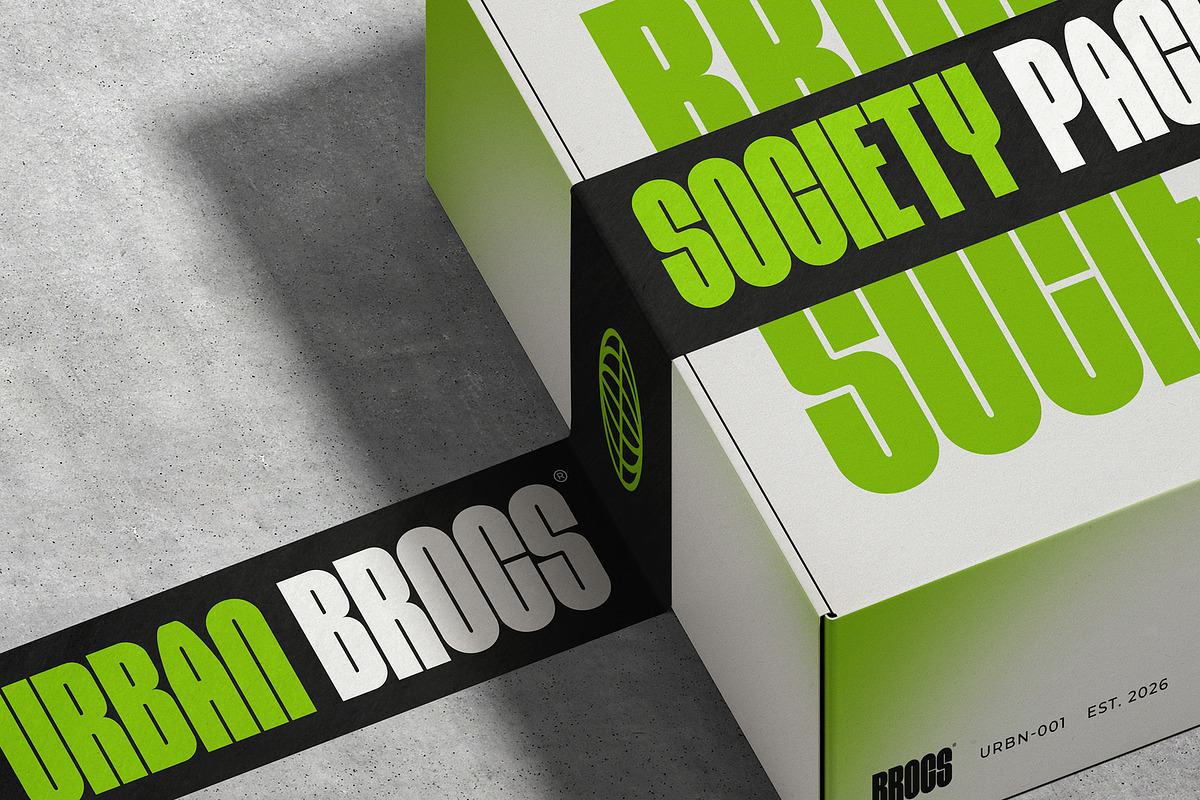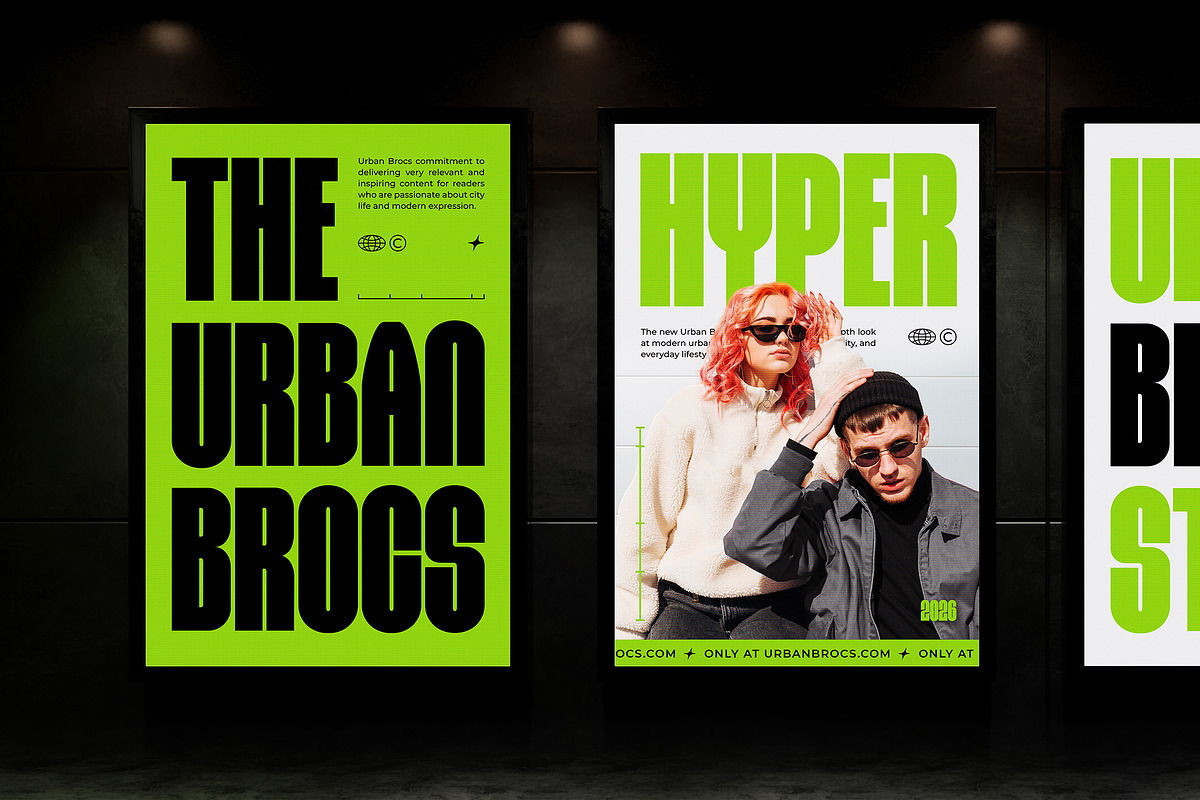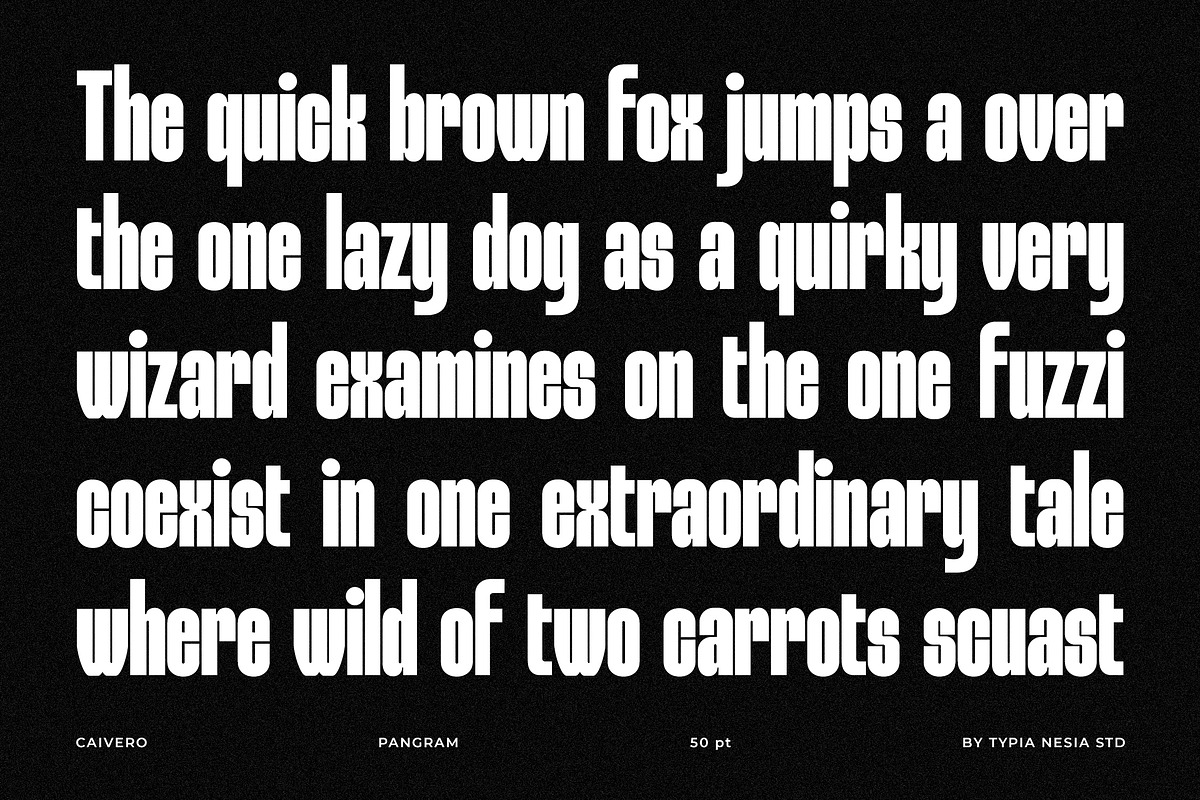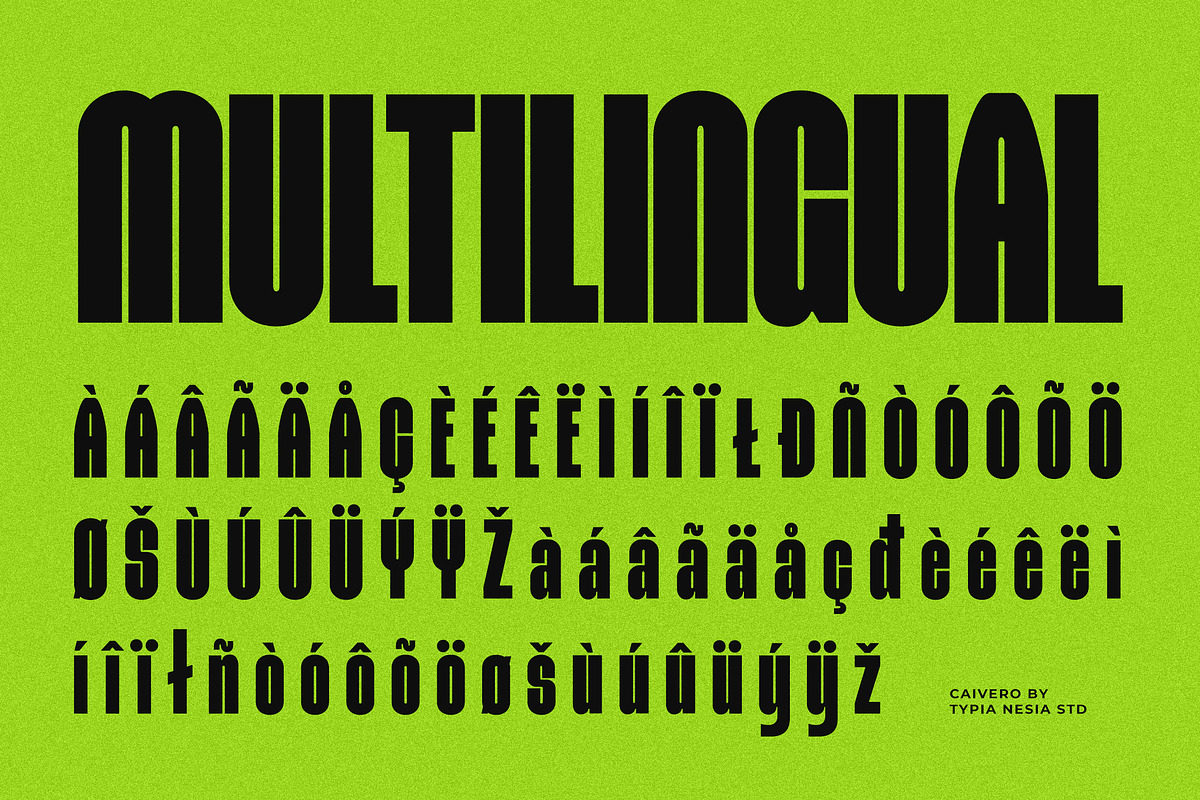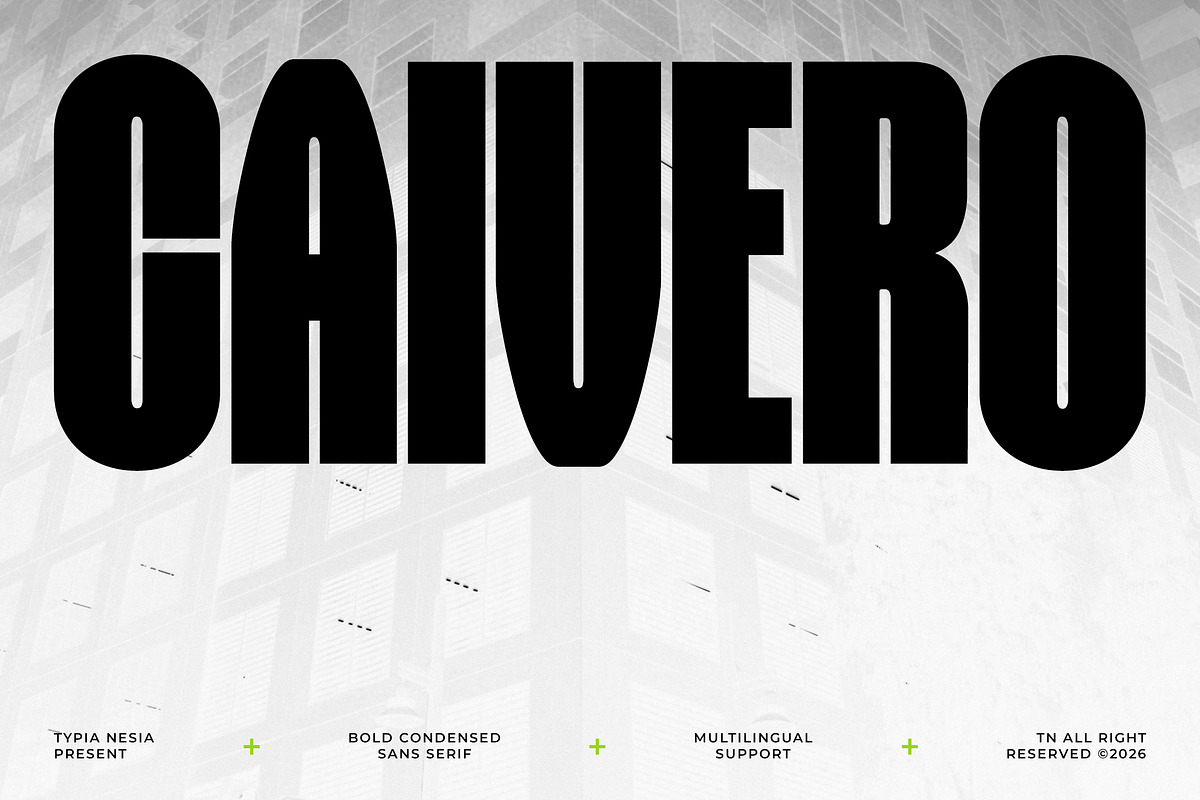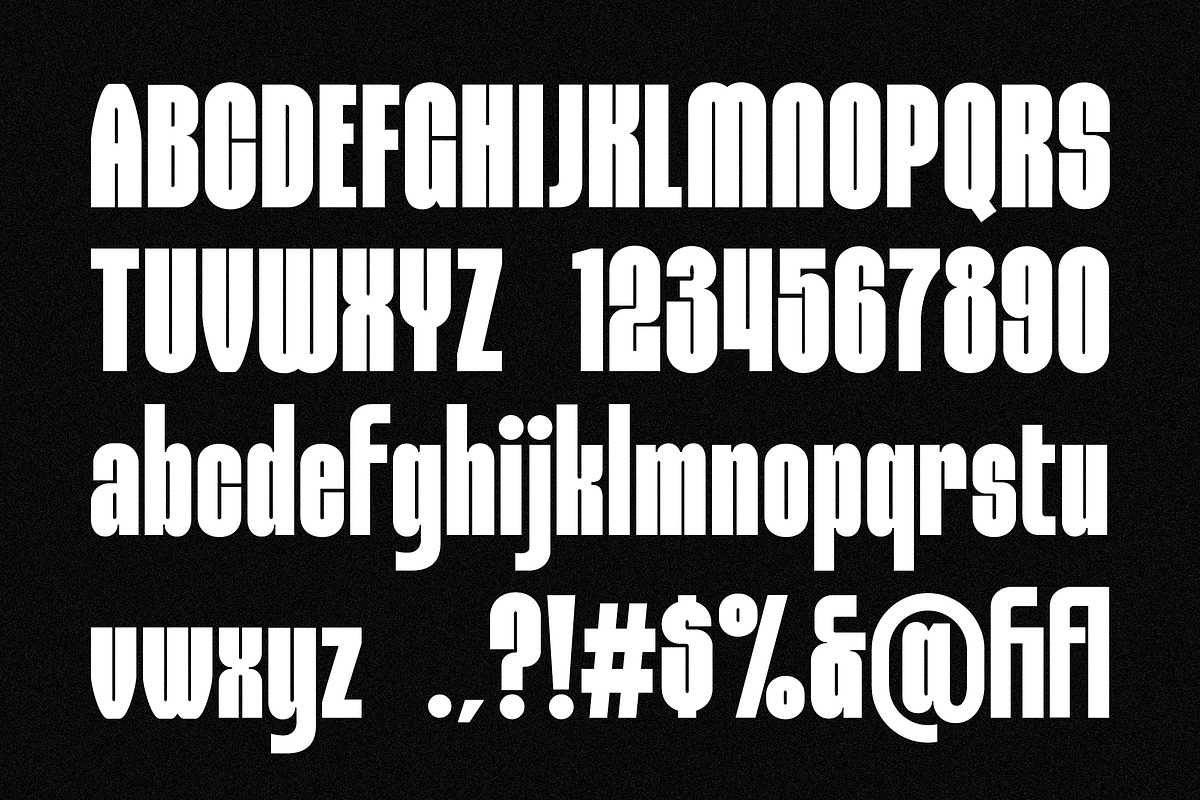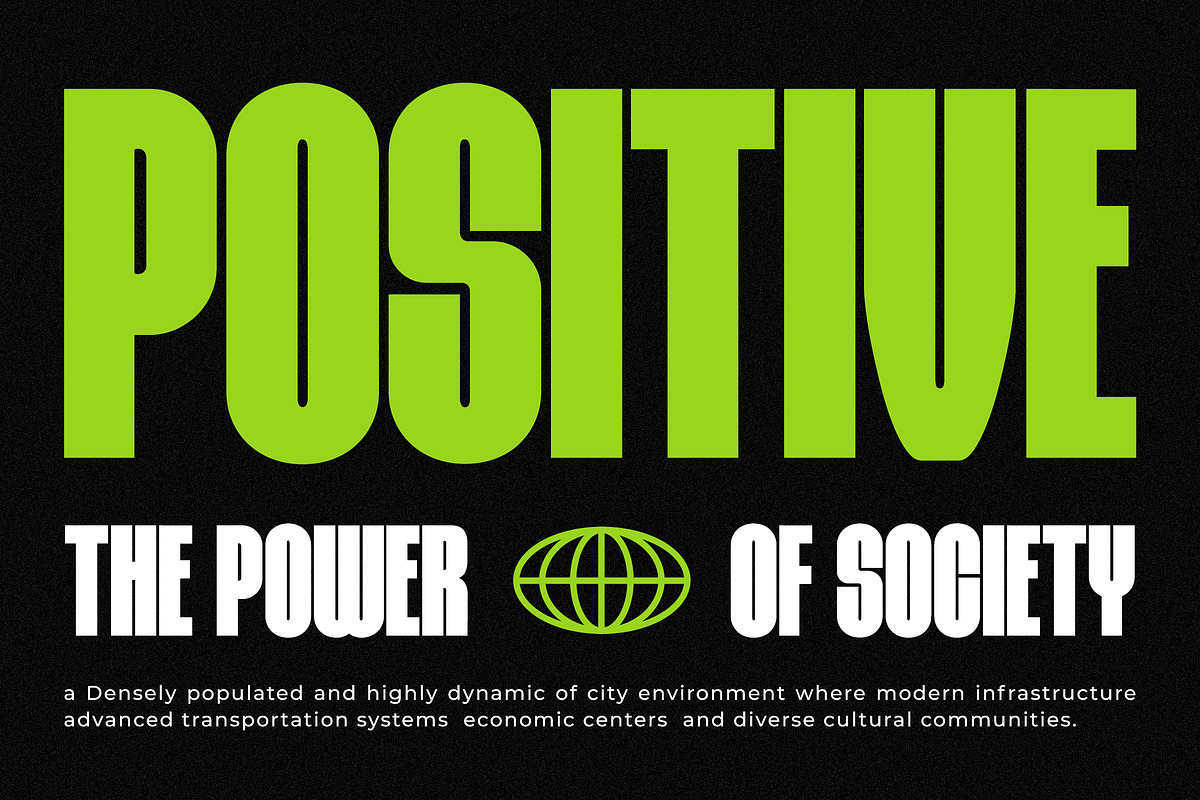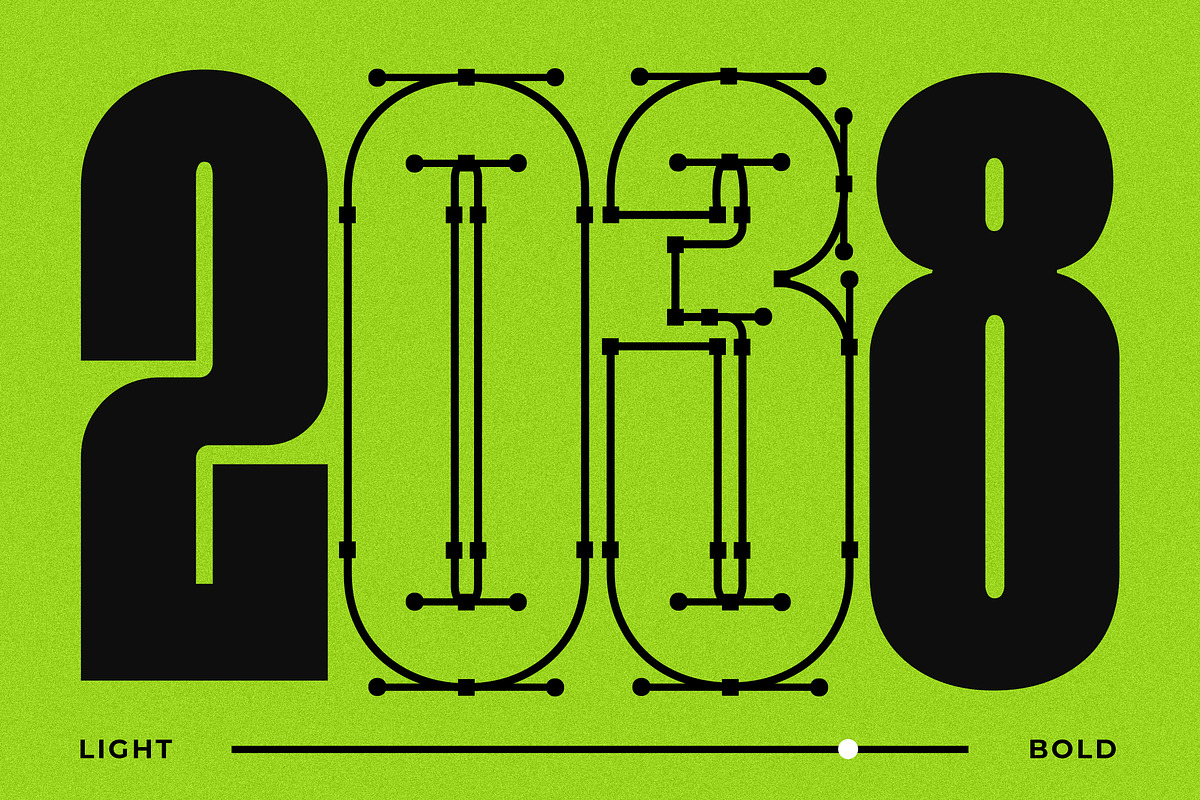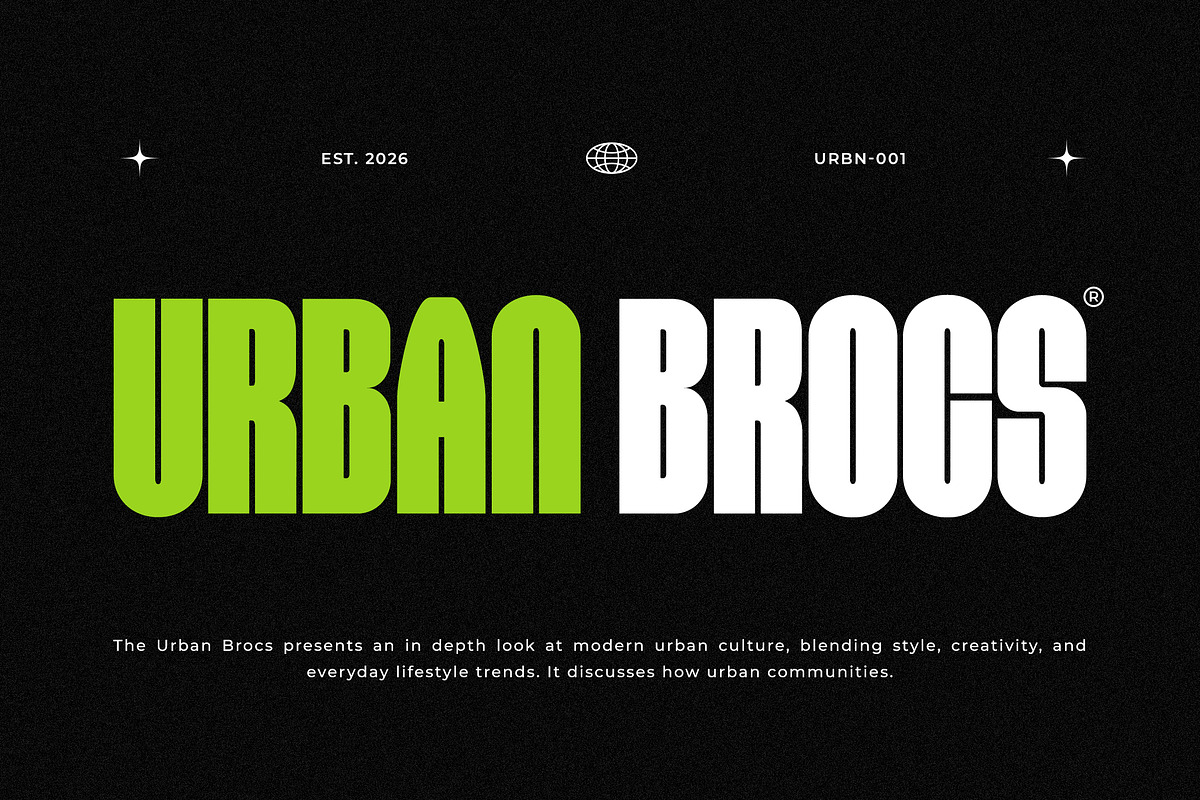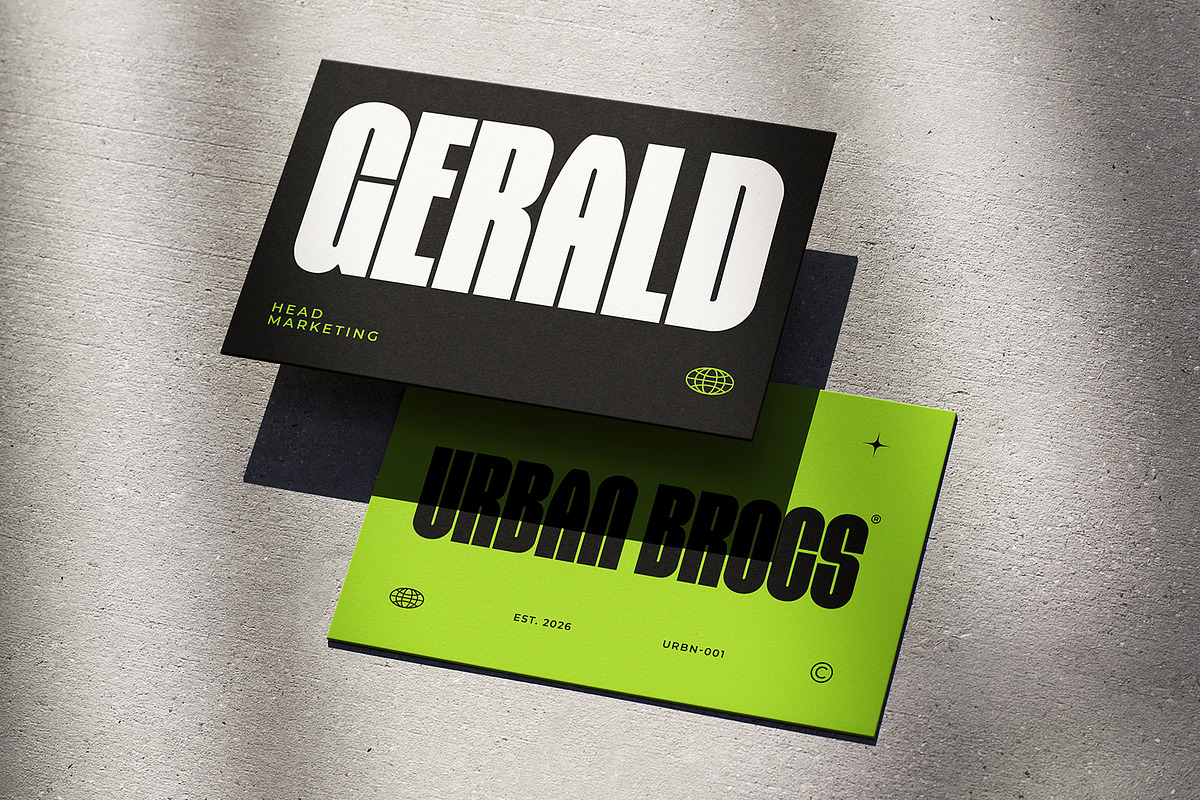
Caivero – Super Condensed Bold Sans
Caivero - Super Condensed Bold Sans Display Font - Modern Clean Logo Font
Caivero – Super Condensed Bold Sans Display Font is a powerful and modern display typeface designed to make a strong visual statement. Built with a bold, super-condensed, tall sans-serif structure, Caivero delivers a clean, urban, and masculine look that commands attention in any layout. Its sharp proportions and compact letterforms make it perfect for logos, wordmarks, logotypes, posters, headlines, impactful branding, sports branding, corporate identities, advertising visuals, and modern urban designs. The font maintains excellent readability while maximizing space efficiency, making it ideal for both print and digital applications.